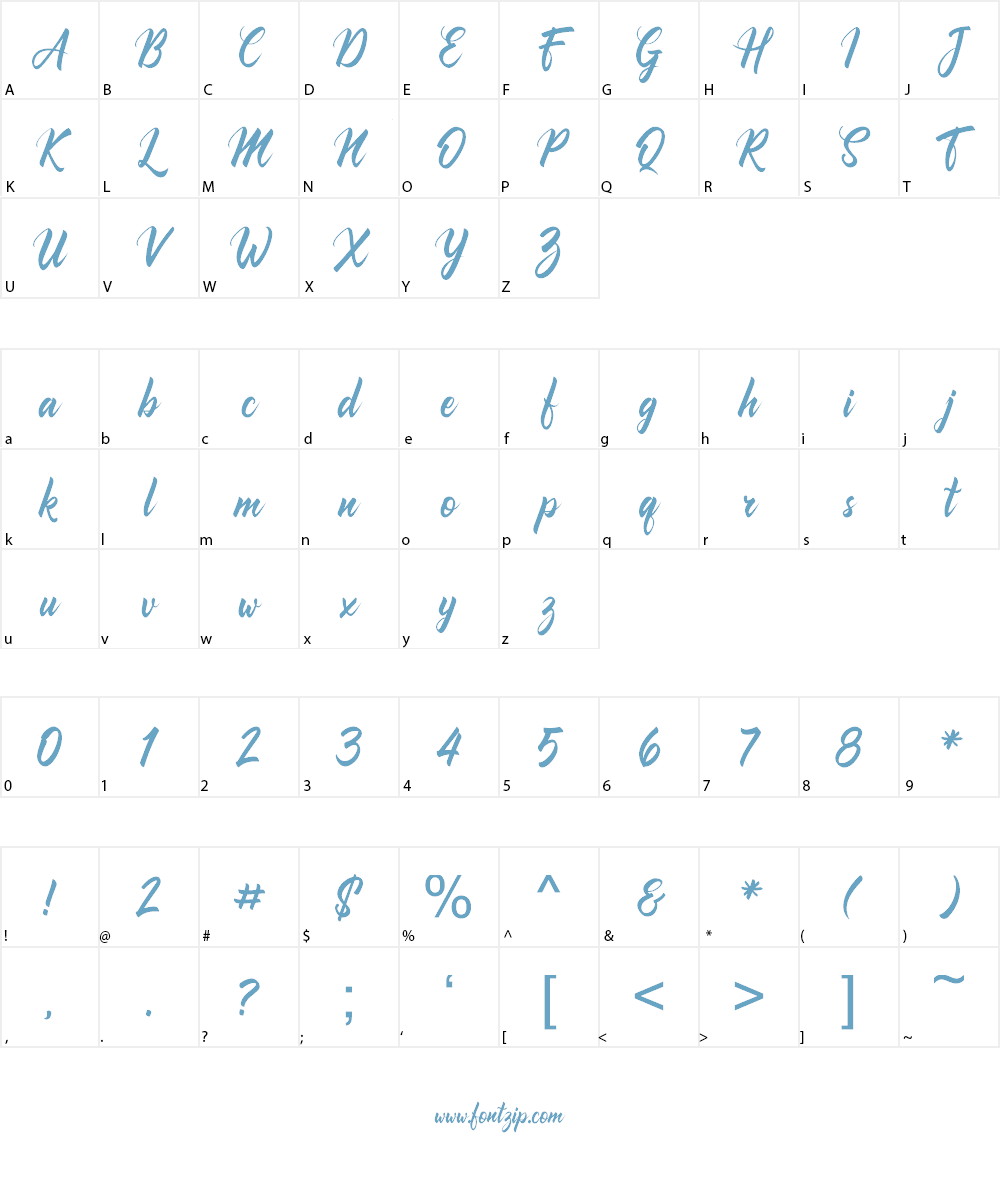
Comebro is a stylish script font, suitable for many of designing needs such as logo, cover, header, greeting card, quotes, etc. It can be use in long or short text and stii readable.